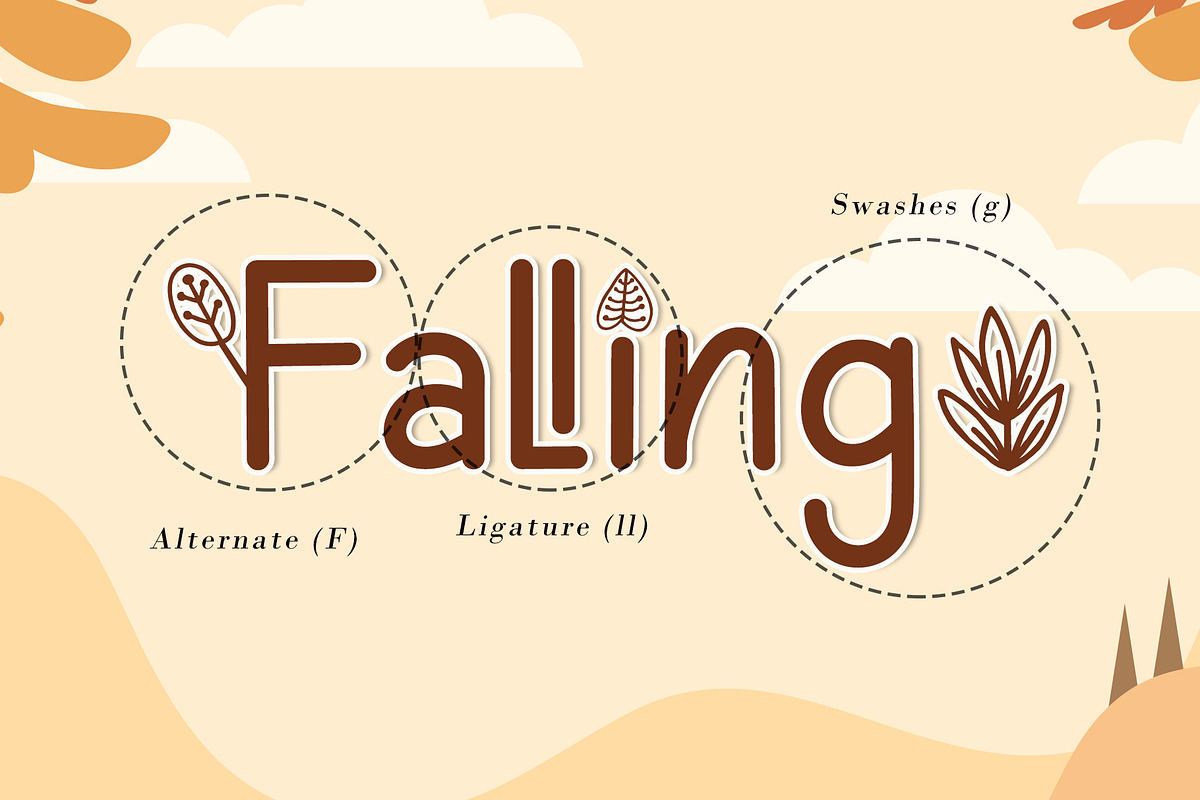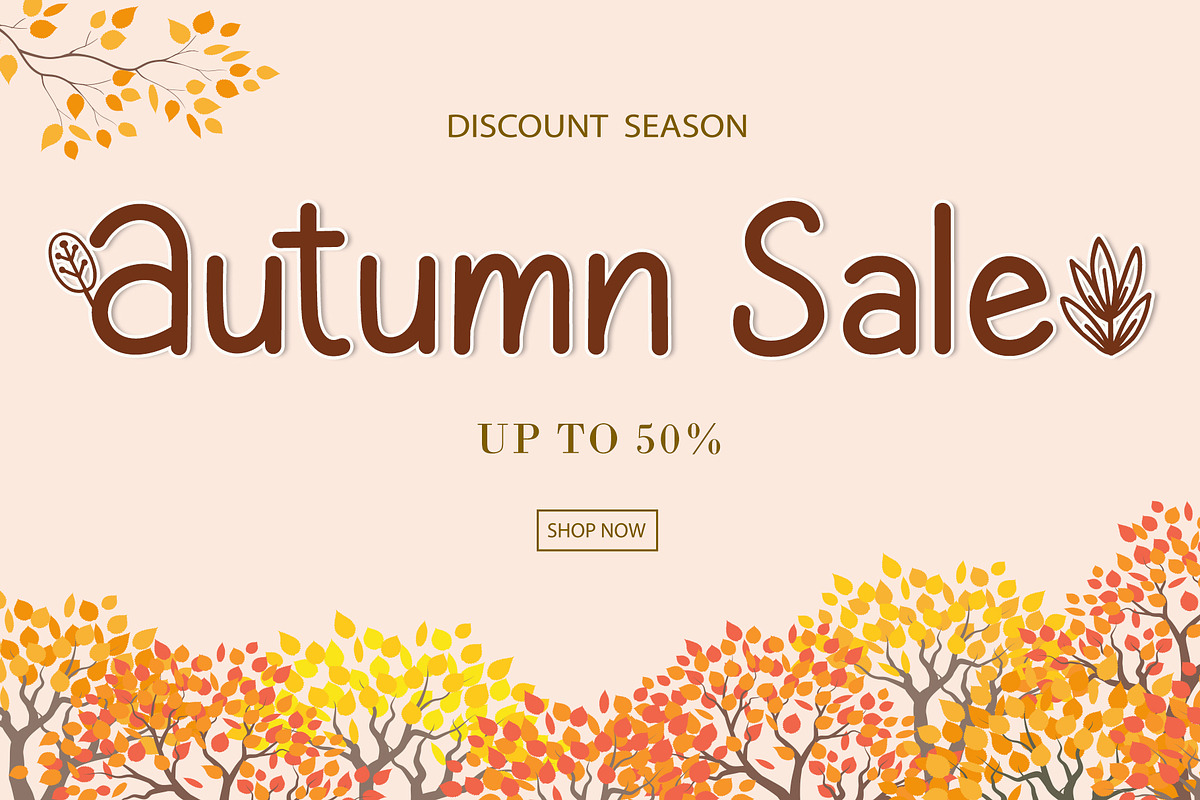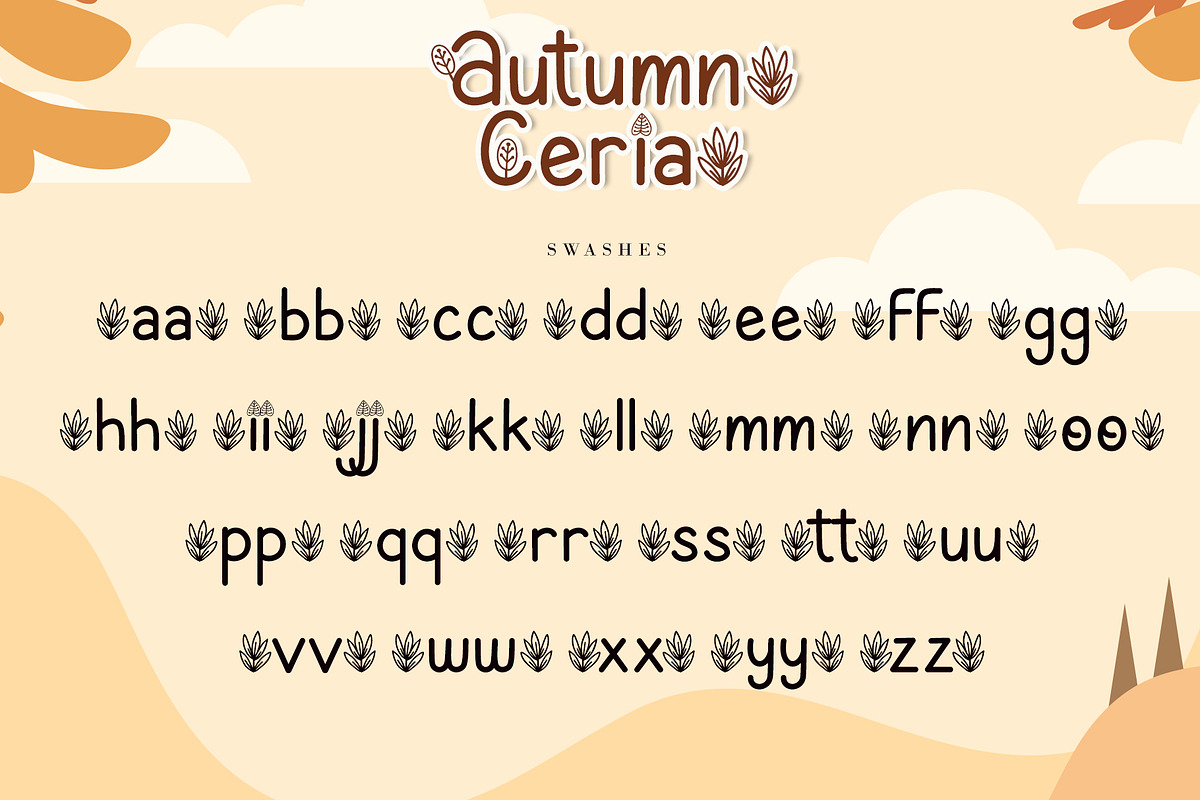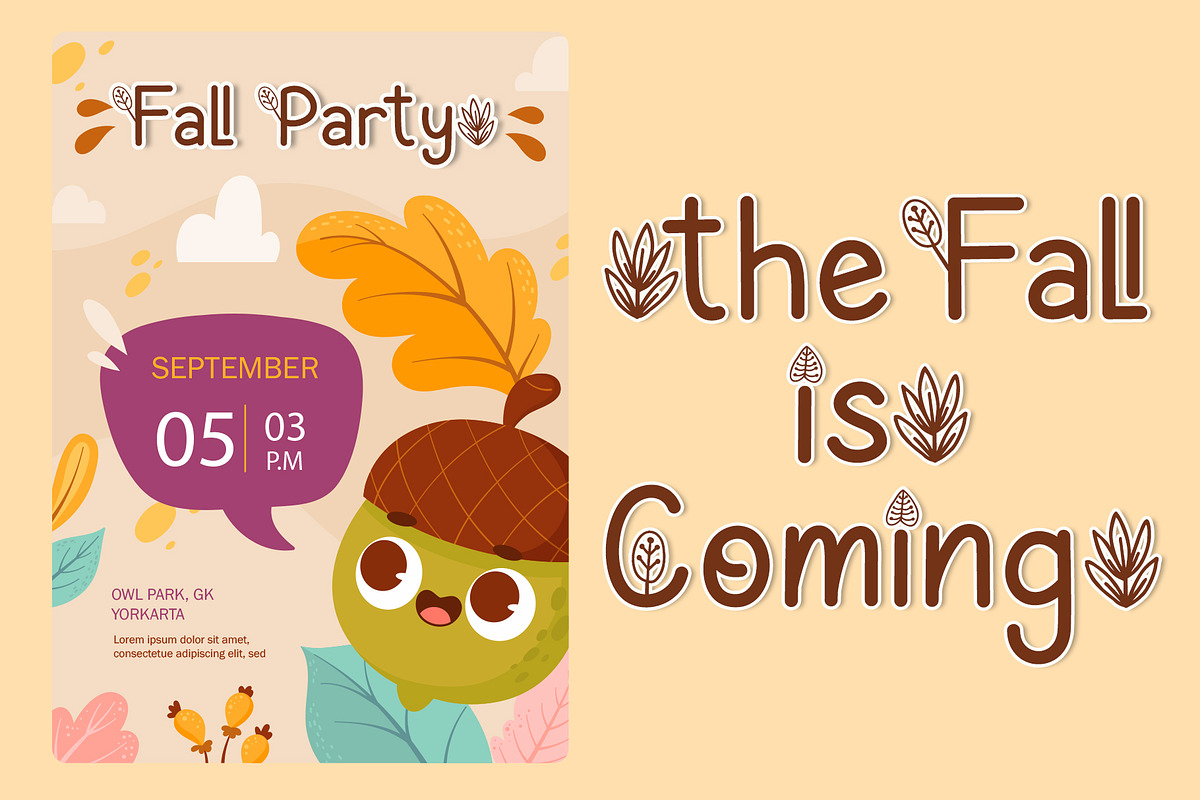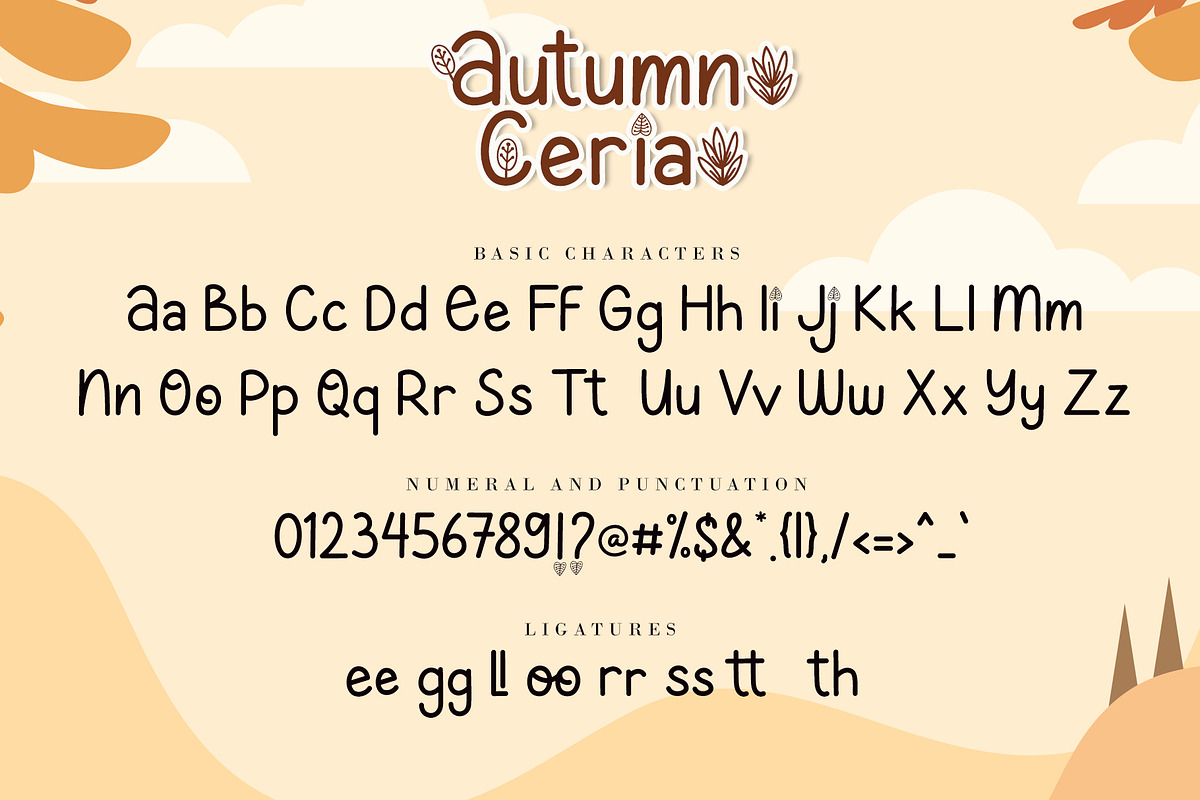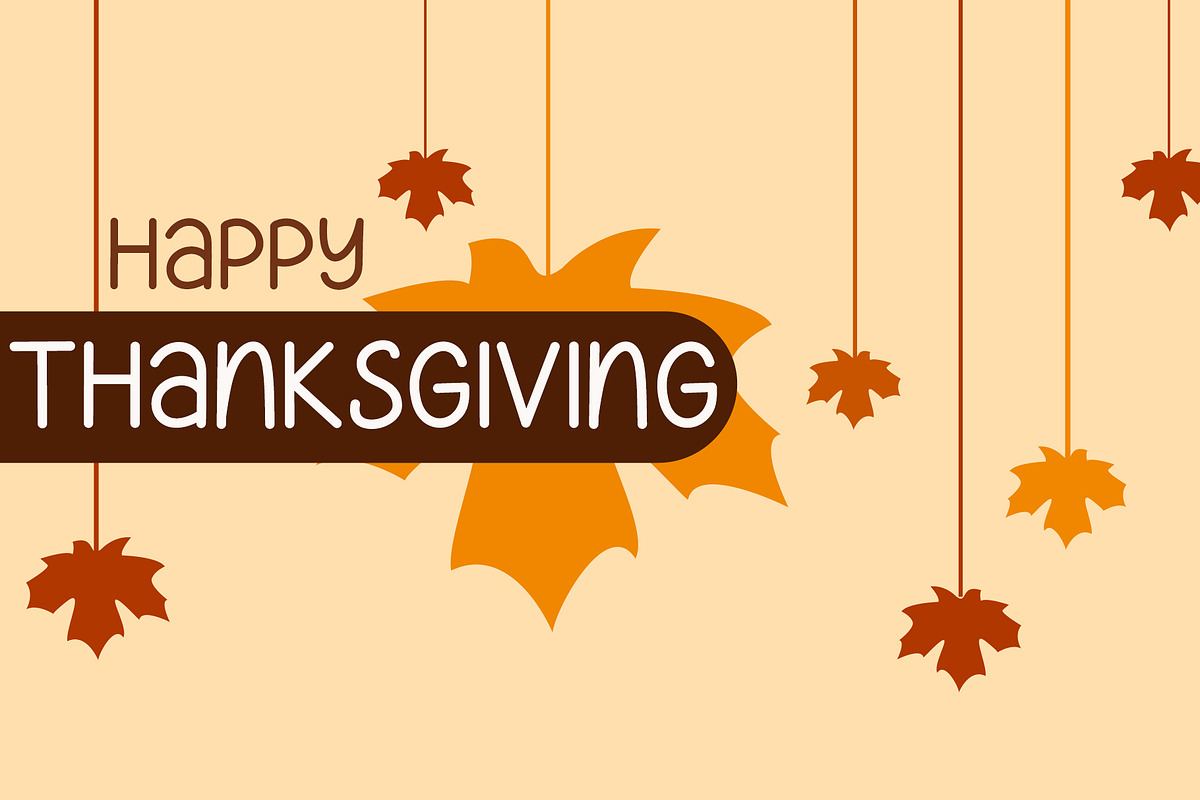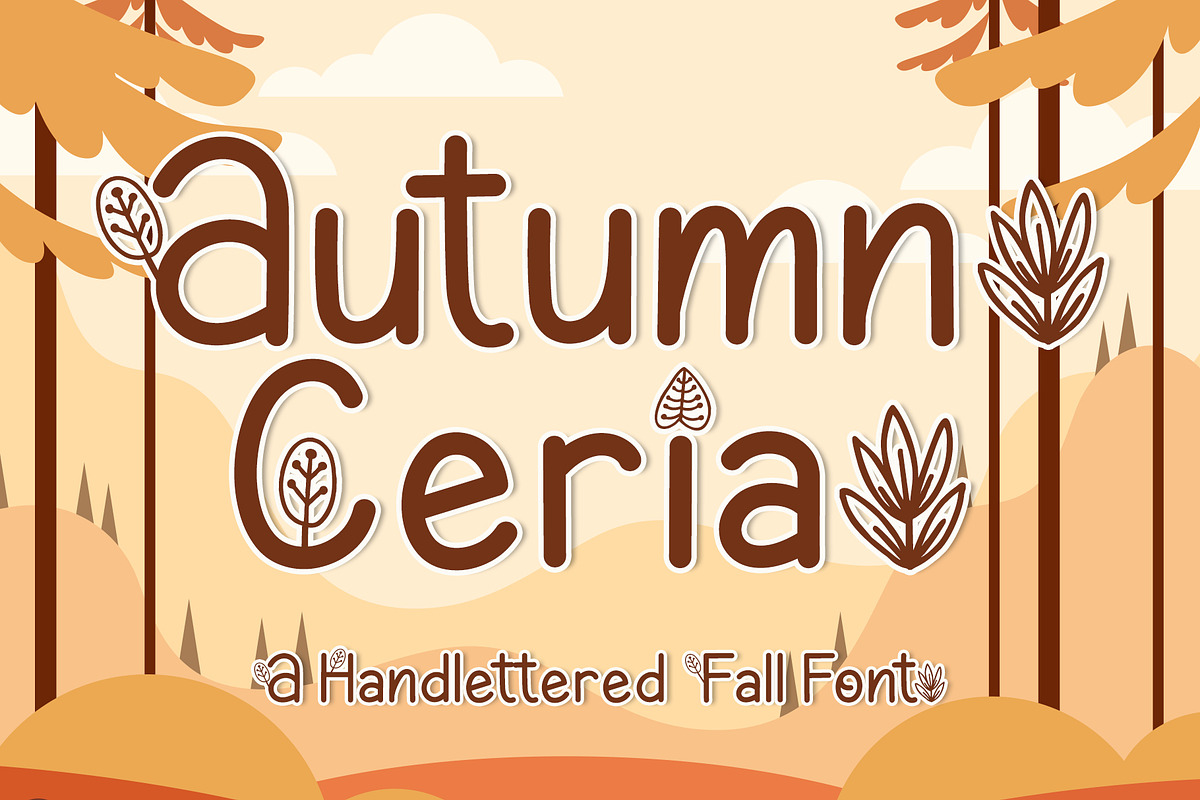
Autumn Ceria
Autumn Ceria is a simple and adaptable handwritten font. This font is PUA encoded which means you can access all glyphs and swashes with ease! Add it confidently to your favorite creations and let yourself be amazed by the outcome generated.
Autumn Ceria Features :
- (a-z) swashes, (a-z) titling, ligatures
- (A-Z) alternates
- Support multilingual; ä ö ü Ä Ö Ü ß ¿ ¡